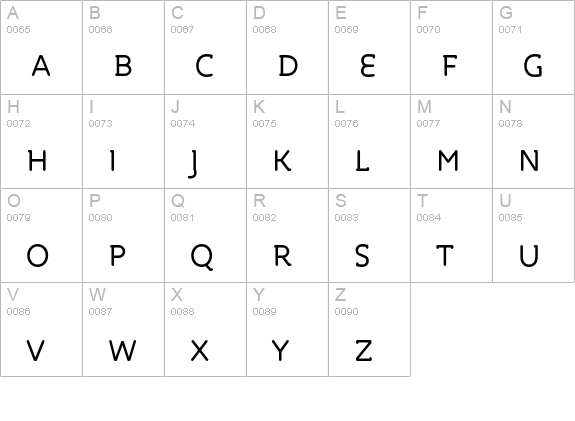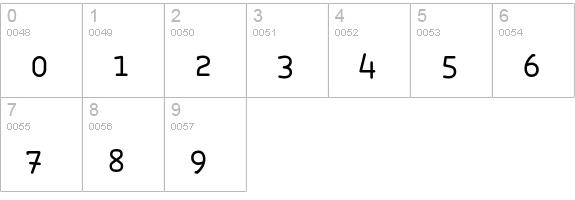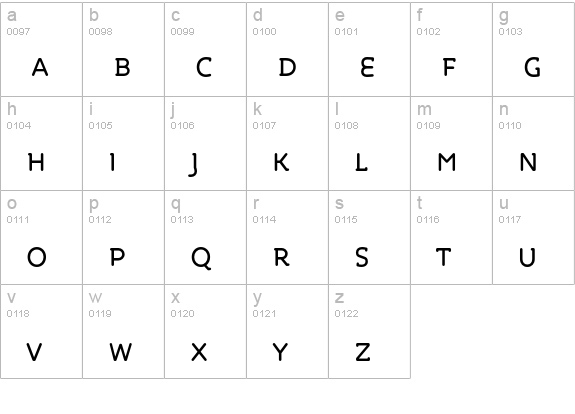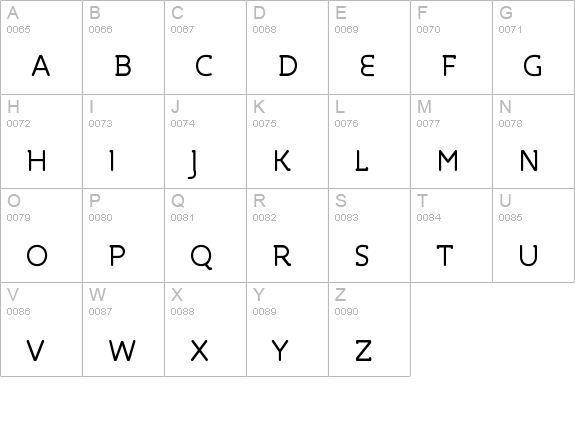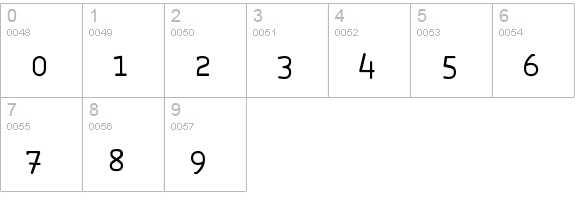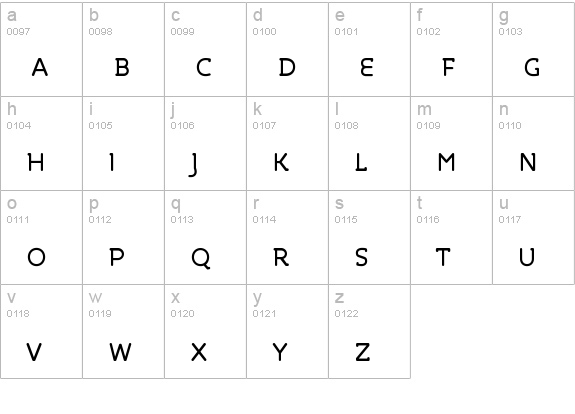
Roice-RegularSC font is a versatile and elegant typeface that exudes sophistication and style. With its classic yet modern design, this font is perfect for a wide range of projects, from branding to editorial design. The clean lines and subtle curves of Roice-RegularSC make it easy to read and pleasing to the eye, making it a great choice for both print and digital applications. What's even better is that Roice-RegularSC is available for free download at FontsMarket.com. This means you can easily access this beautiful font and use it in your projects without any cost. Don't miss out on the opportunity to enhance your designs with the timeless elegance of Roice-RegularSC. Download it now and elevate your typography game!